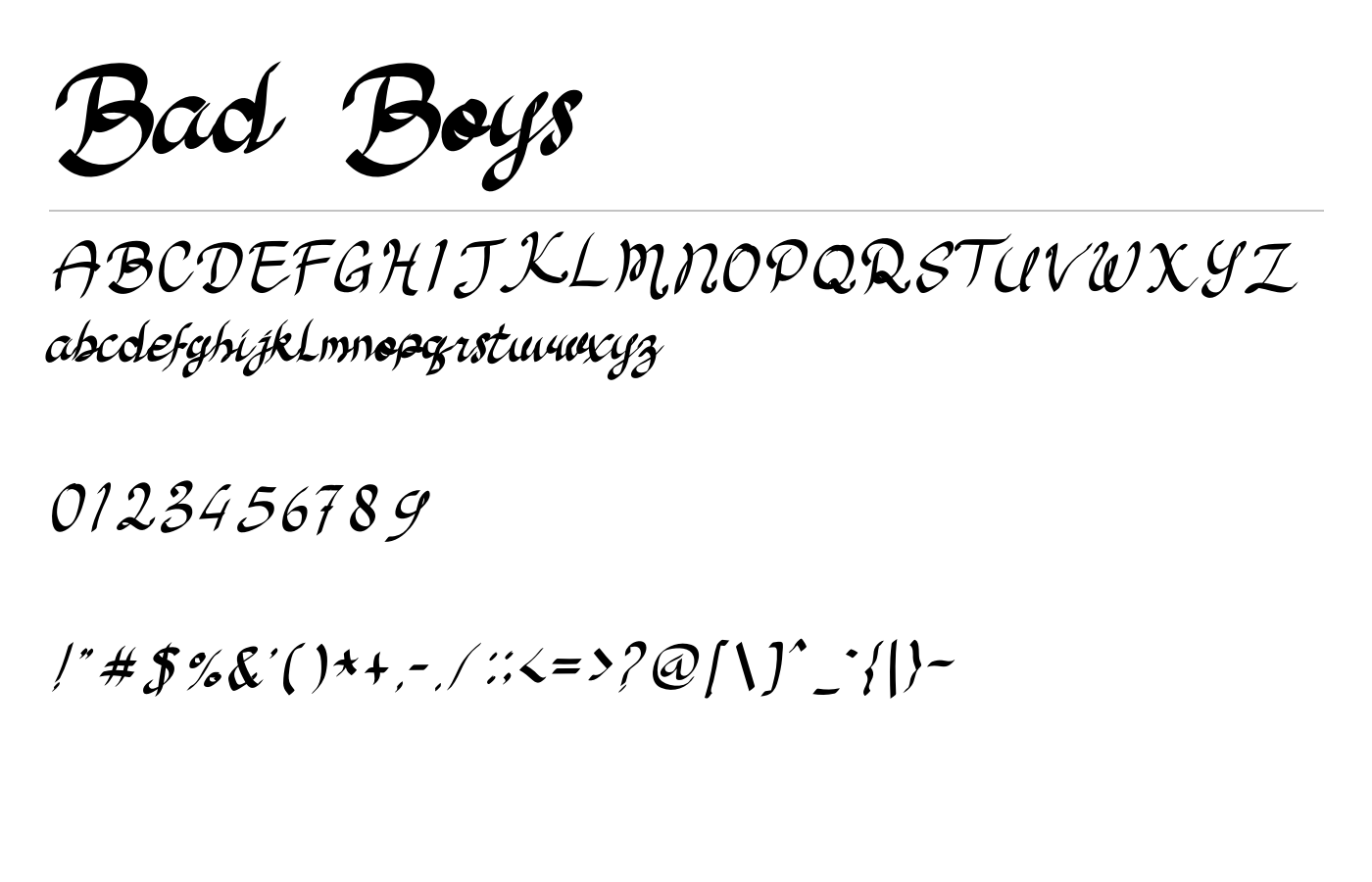
Bad Boys Font is a dramatic and stylized script font that combines bold, sharp strokes with elegant cursive flow. Its high-contrast letterforms and distinctive calligraphic flair lend a rebellious yet sophisticated character, making it ideal for edgy branding, posters, and headlines that seek to capture attention with a touch of attitude. This font works best where personality and impact are key, adding a dynamic and artistic vibe to fashion, entertainment, or creative projects.
Bad Boys Font
About Bad Boys Font
| Font family | Bad Boys Font |
| Designer | Nur Edi Prayitno |